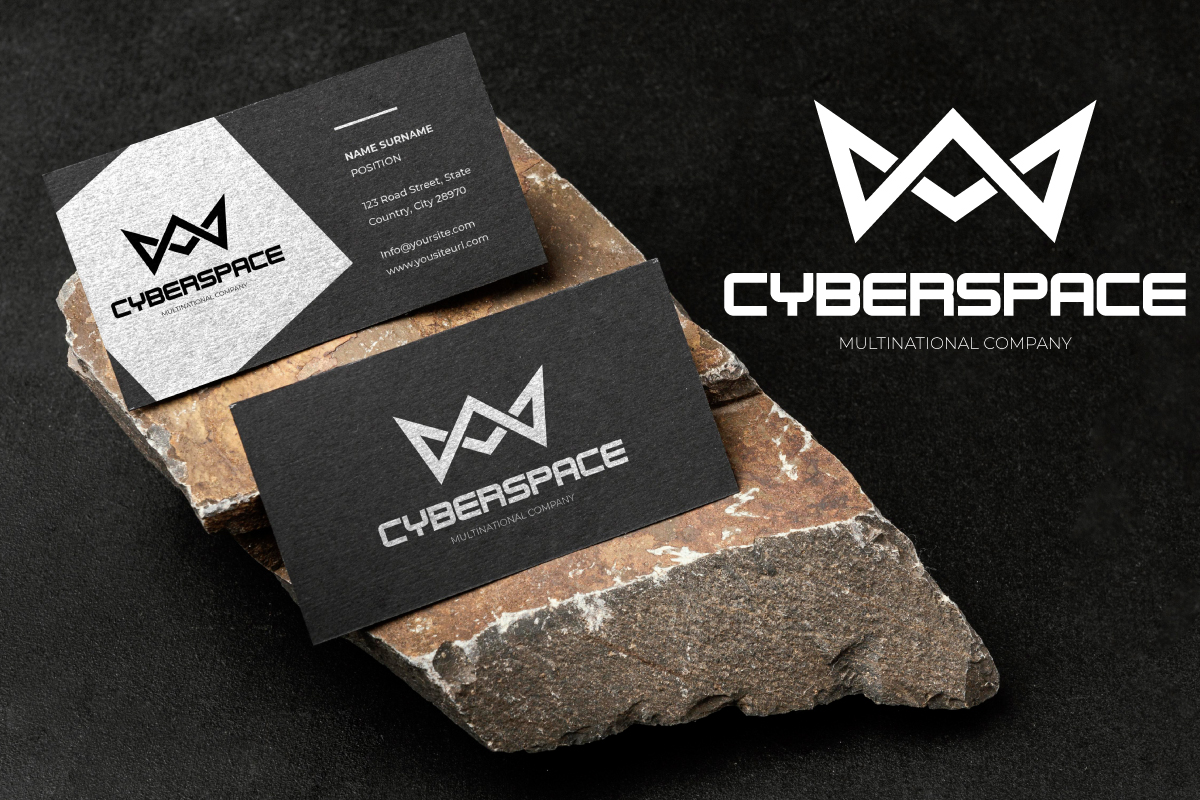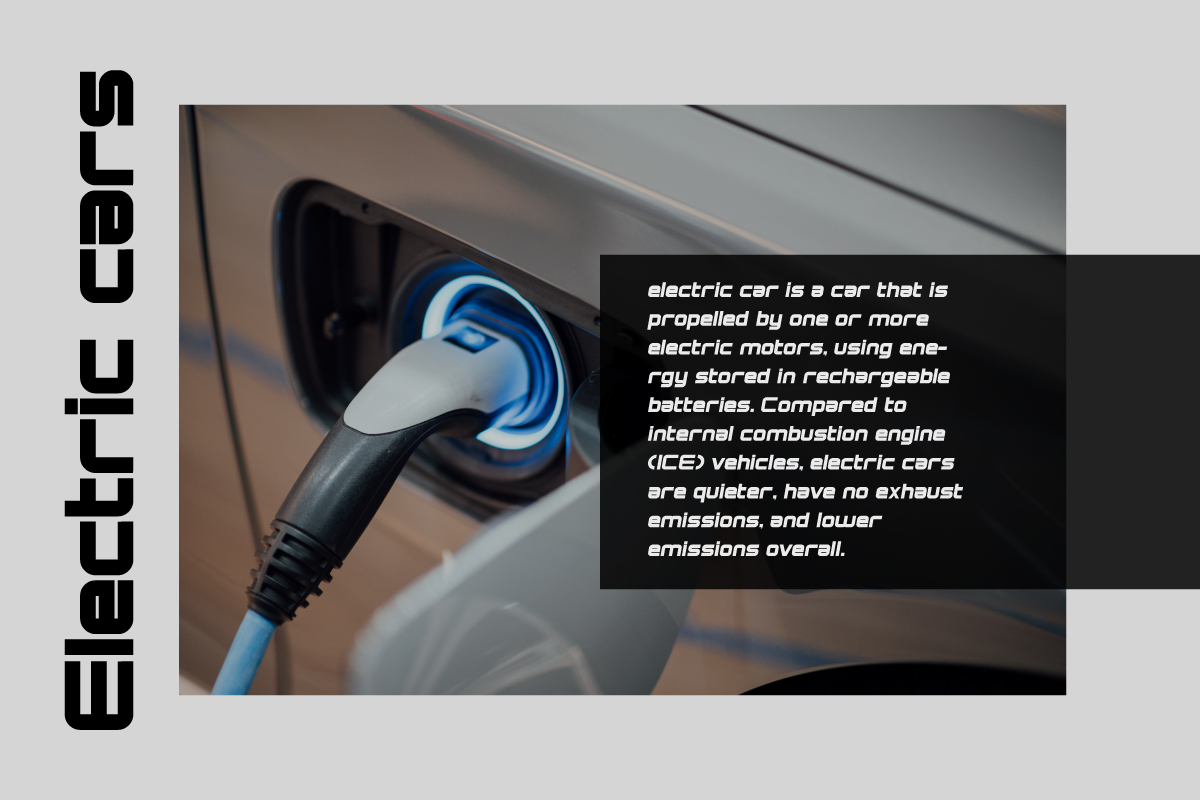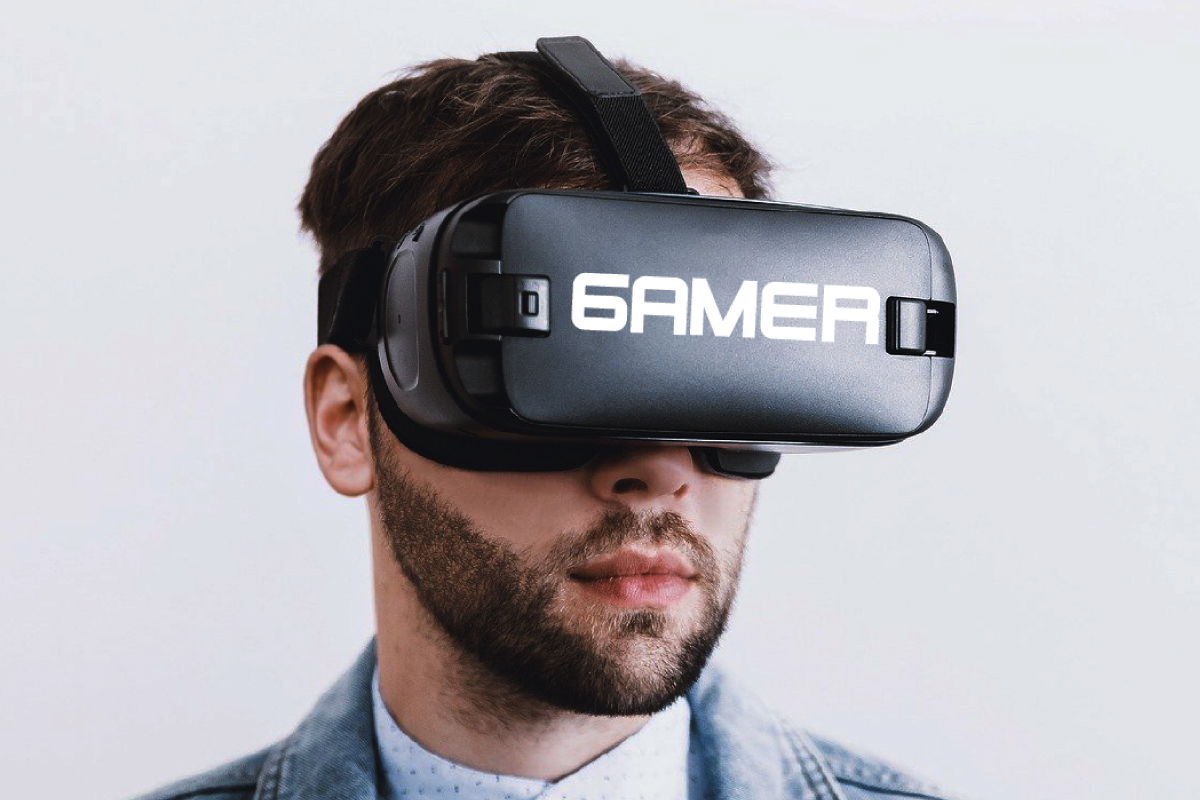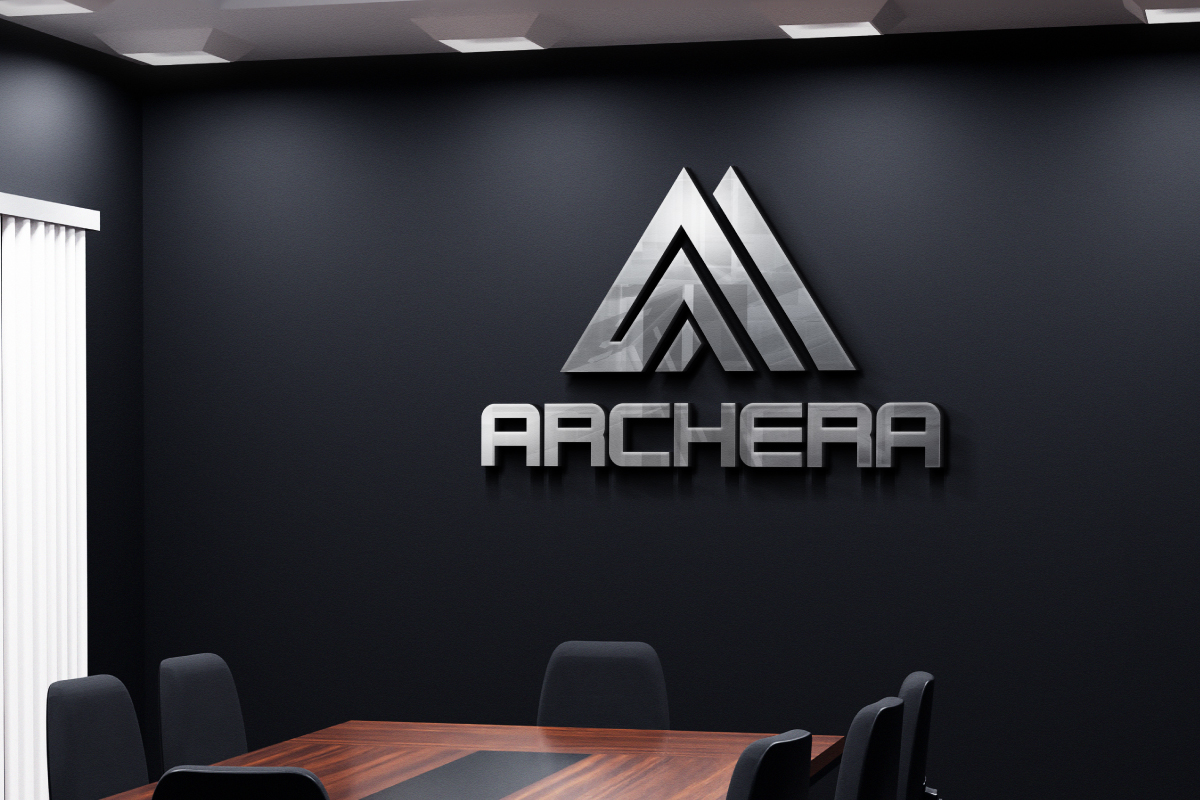
Technophile Sans Serif Font
This is a modern display font family with tech and futuristic style. The font has some characteristic which are modern, techno, strong, masculine, sporty etc. It will be cool for logo, brandings, headlines, signage etc. The font will be awesome for many industries including : racing, sports, techno, festival, games, movies etc.